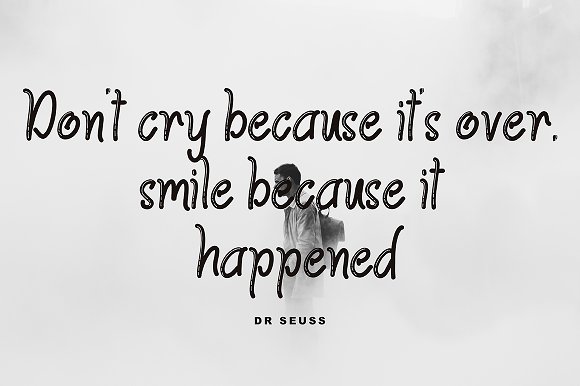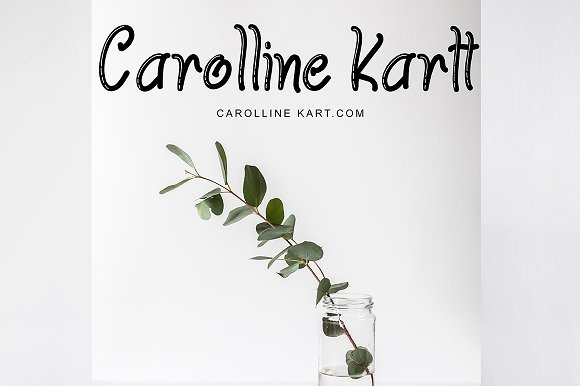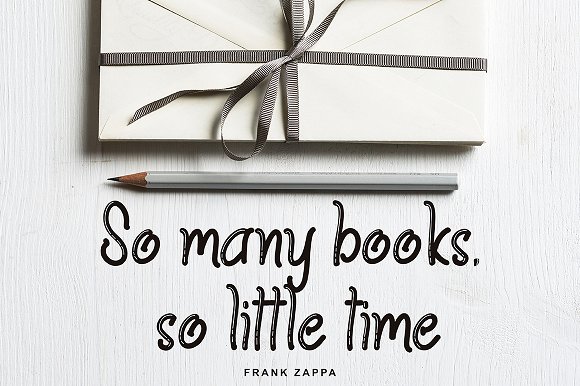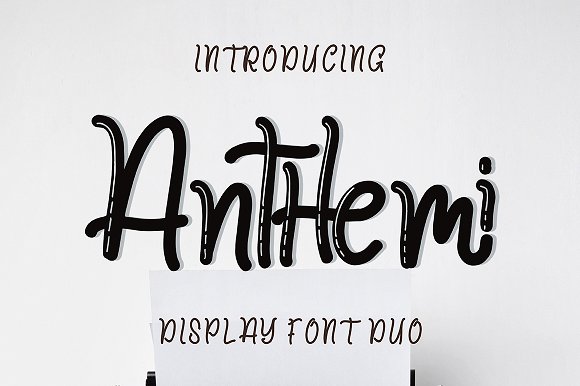
Anthemi Font Script
Anthemi font, font with new style, this font will perfect for many different project ex: quotes, logo, blog header, poster, banding, fashion, apparel, letter, invitation, stationery, etc